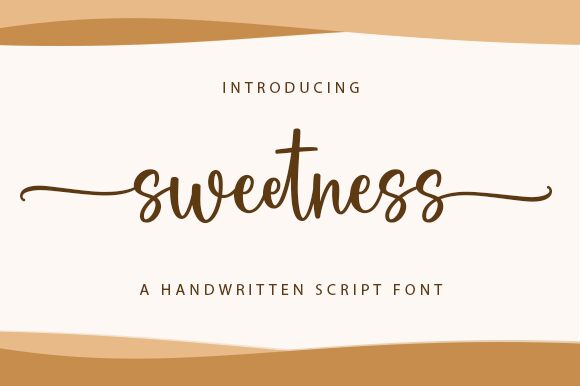
Sweetness
Sweetness is a whimsical handwritten font created by Graphix Line Studio, perfect for adding a touch of playfulness to any project. With its charmingly irregular letterforms and varying stroke widths, Sweetness exudes a carefree vibe that's ideal for everything from children's book titles to wedding invitations. Whether you're designing a logo, crafting social media graphics or laying out a magazine spread, this semi-bold font will add personality and character to your work. So let your creativity run wild with Sweetness - the go-to typeface for anyone seeking an effortlessly charming aesthetic.